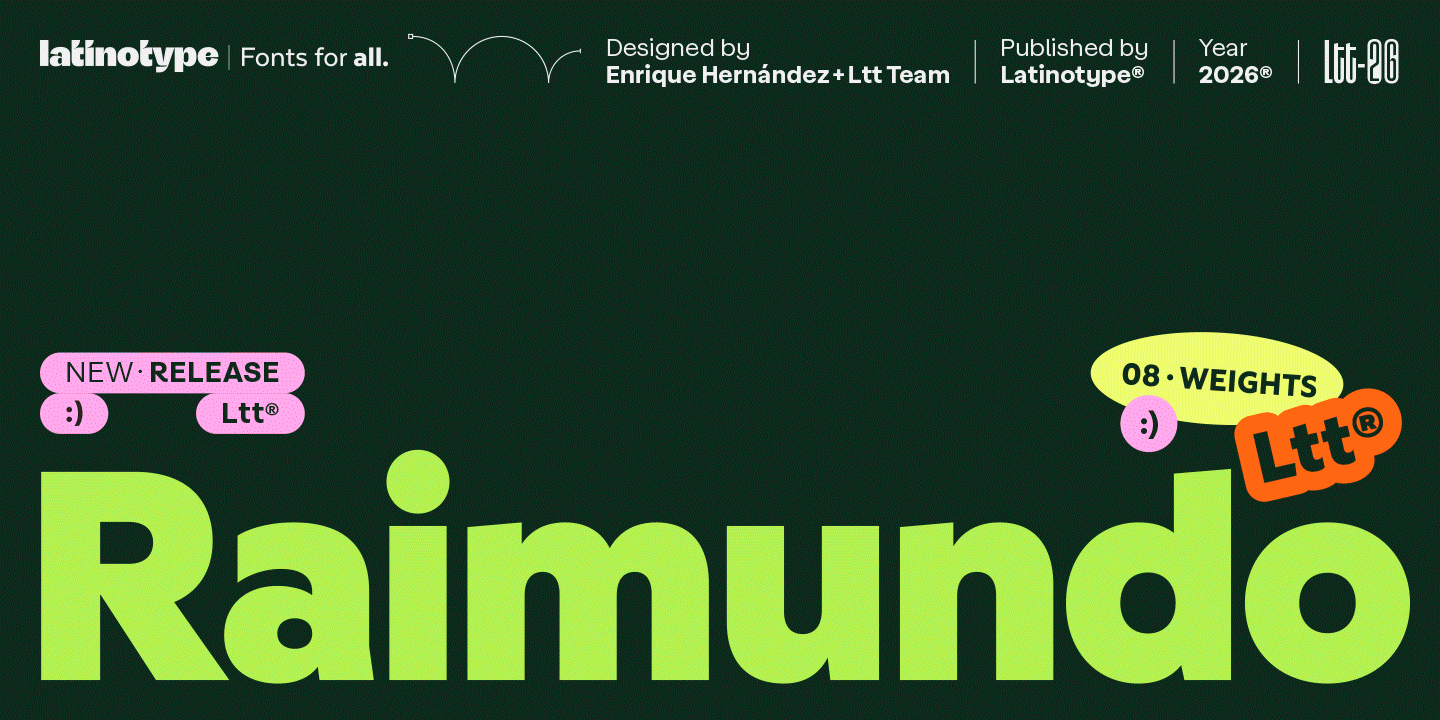
Raimundo: Bold, confident, and ready to use — plus Meskaro, Bellview & more...
Raimundo is that friend who gives you straight advice with a pat on the back. A raspy, confident voice that always has a joke behind every line. You’ll remember it fondly — and that's exactly what we want your brand to feel when you use it.
Eight weights from Thin to ExtraBold, each with enough personality to stand on its own. Its construction sits between geometric and grotesque: rounded forms with tension in the right places, open counters that hold up at small sizes, a weight range that goes from quiet to loud without breaking character. The alternate set covers a, e, and g — small shifts that move the tone from neutral to expressive. 541 glyphs including typographic emoticons that fit consumer-facing brands without feeling forced.
Raimundo was built for food retail, FMCG packaging, digital products, and brand identities that need to feel alive at every size. Not neutral. Not anonymous. The kind of typeface people recognize before they finish reading.
“Ready to leave a trace.” — Latinotype
The Latinotype Team is the in-house design collective behind Latinotype's catalog. Our designers are spread across the globe — a multigenerational team that brings together emerging creative voices and type designers with over two decades of experience.
That mix is intentional. It's what gives our work both the energy of fresh perspectives and the depth of long-term craft. Every typeface we release goes through a curatorial process driven not just by technical standards, but by a genuine artistic vision — the kind that separates a well-made font from one that actually has character.
From display to text, from original families to multi-script extensions, we design type that holds up in the real world without losing what makes it worth using.
Meskaro – Modern Serif Display is the ultimate choice for luxury branding. It is perfect for high-end editorial design, premium packaging, fashion logos, and expressive headlines. Whether you are crafting a magazine spread or a high-profile corporate identity, this font provides the visual authority needed to define a brand's premium status and aesthetic essence.
Bellview is a display font characterized by its bold, sturdy, and modern aesthetic. Its letterforms—featuring bold, geometric shapes and distinctive ligatures—convey strength and personality while maintaining a clean, professional look.
This font is ideal for branding, logos, headlines, posters, packaging, apparel, and any design application requiring a bold, instantly recognizable appearance. Bellview offers a blend of robust classic style and a modern touch, making it versatile enough for a wide range of visual concepts.
Bendor Signature is an expressive signature script font designed with flowing strokes, distinctive letterforms, and a natural handwritten feel. It comes in two styles: Regular and Monoline, with two different uppercase variations that give you more options to create unique signature looks and lettering combinations.
A bold display serif typeface that channels the quintessential essence of 90s classic design. Its robust letterforms and character-rich details exude a traditional and retro charm, perfect for projects that require a touch of nostalgic sophistication. The font’s design captures the spirit of the era with its strong presence and distinctive character, making it a standout choice for a variety of applications.